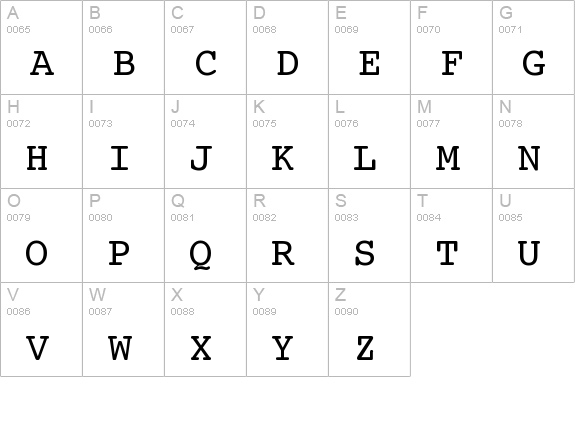
HI Kakuhihewa Plain Font Details
The HI Kakuhihewa Plain font is a modern and stylish typeface that exudes sophistication and elegance. Its clean lines and smooth curves make it perfect for a variety of design projects, from logos to branding to web design. This versatile font is sure to make your text stand out and leave a lasting impression on your audience. Best of all, the HI Kakuhihewa Plain font is completely free to download at FontsMarket.com! Whether you're a professional designer looking for a new font to add to your collection or a hobbyist in need of a fresh look for your creative projects, this font is sure to meet your needs. Don't miss out on this opportunity to enhance your designs with the stunning HI Kakuhihewa Plain font - download it today and let your creativity shine!